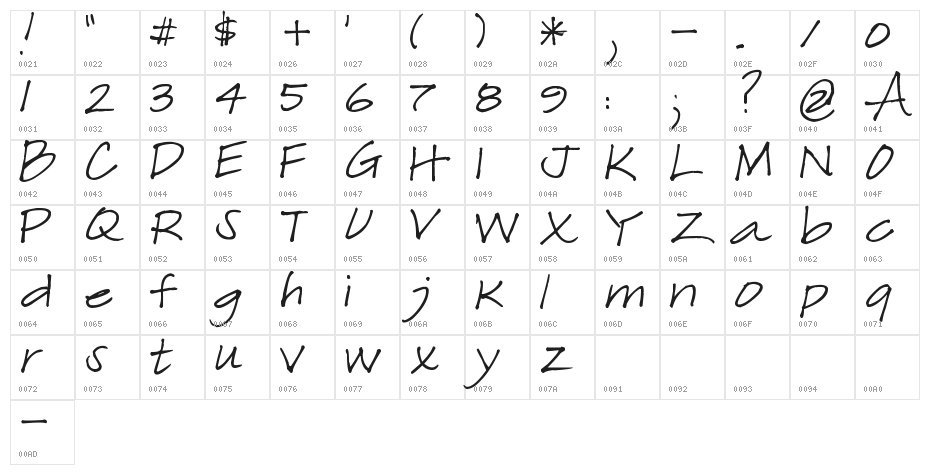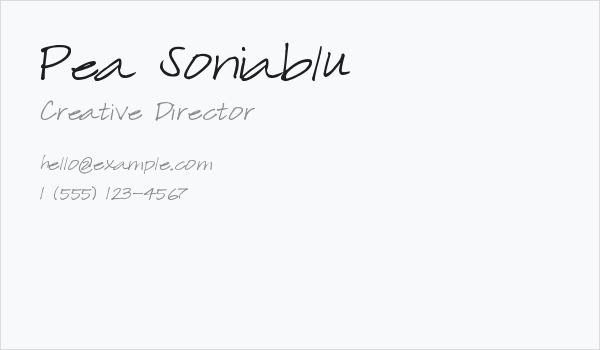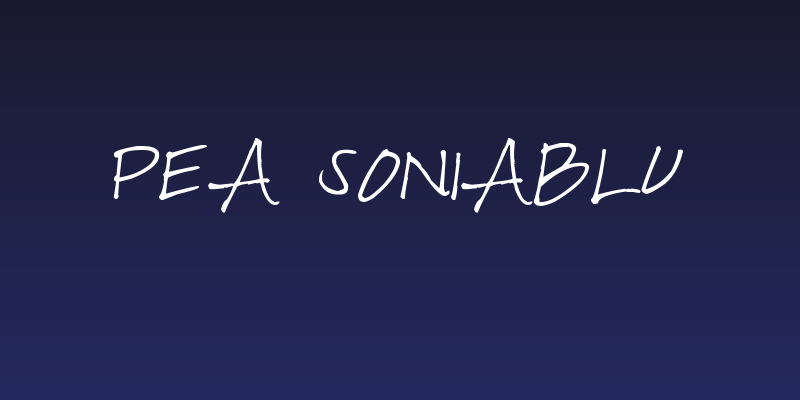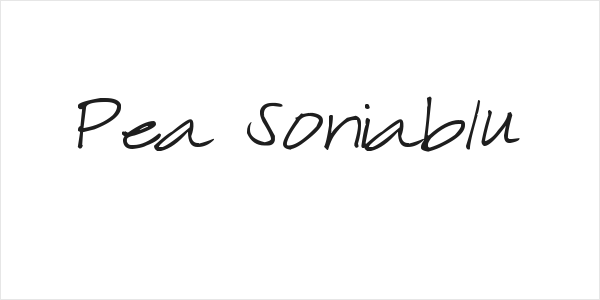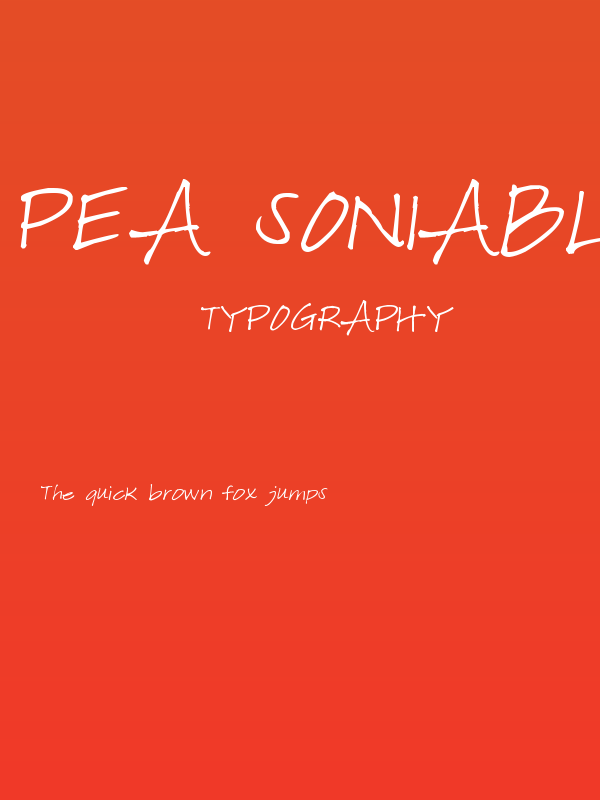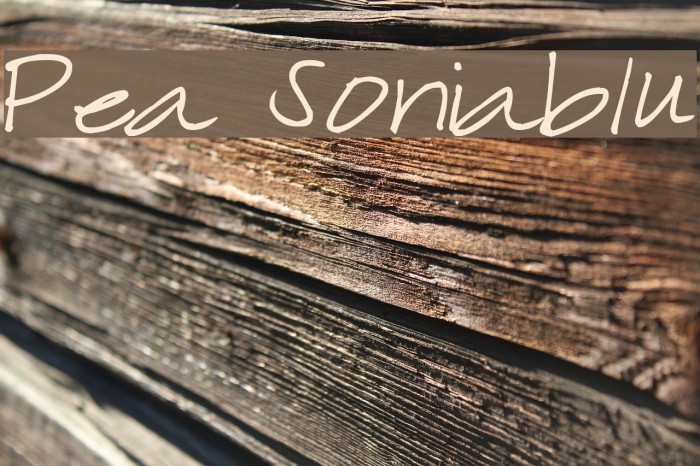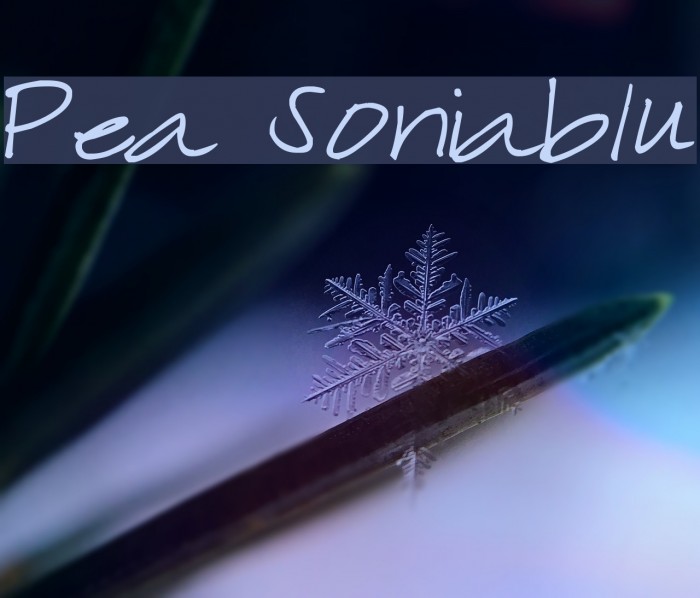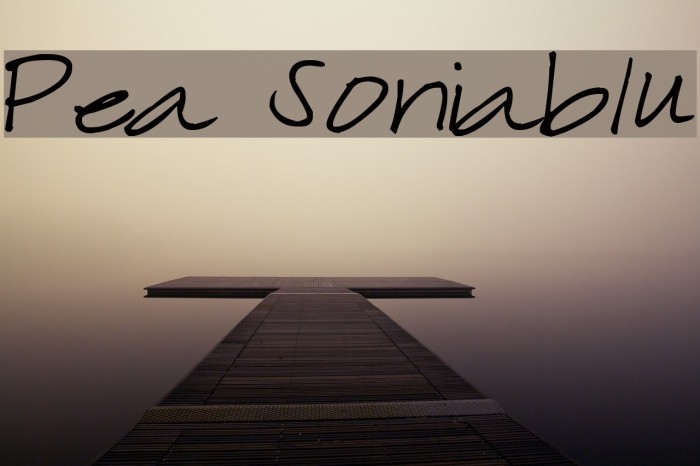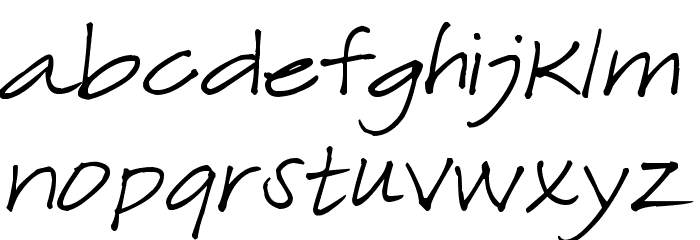
Pea Soniablu Font
Pea Soniablu Description
This font exudes a casual, handwritten style, characterized by its fluid and natural strokes. The letters are slightly slanted, giving it a dynamic and personal touch. The uppercase and lowercase letters maintain a consistent style, with rounded edges and varying stroke widths that mimic the natural pressure of handwriting. The numerals and special characters are crafted with the same attention to detail, ensuring a cohesive look across all characters. This font is perfect for projects that require a personal, informal, and approachable feel.
| Use Case | Logos, Invitations, Personal notes |
| Proposed Projects | Ideal for personal notes, invitations, greeting cards, and informal branding projects. |